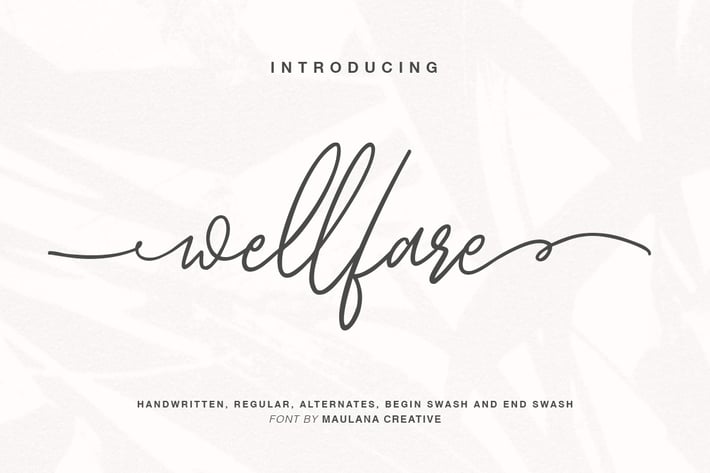
Wellfare - Handwritten Swash Font
Wellfare Handwritten Swash Font consisting of a fashionable sophisticated signature-style script with its own unique curves and an elegant inky flow.
Wellfare Handwritten Swash Font is perfect for branding projects, logo, wedding designs, social media posts, advertisements, product packaging, product designs, label, photography, watermark, invitation, stationery and any projects that need handwriting taste.
- Tons of glyphs